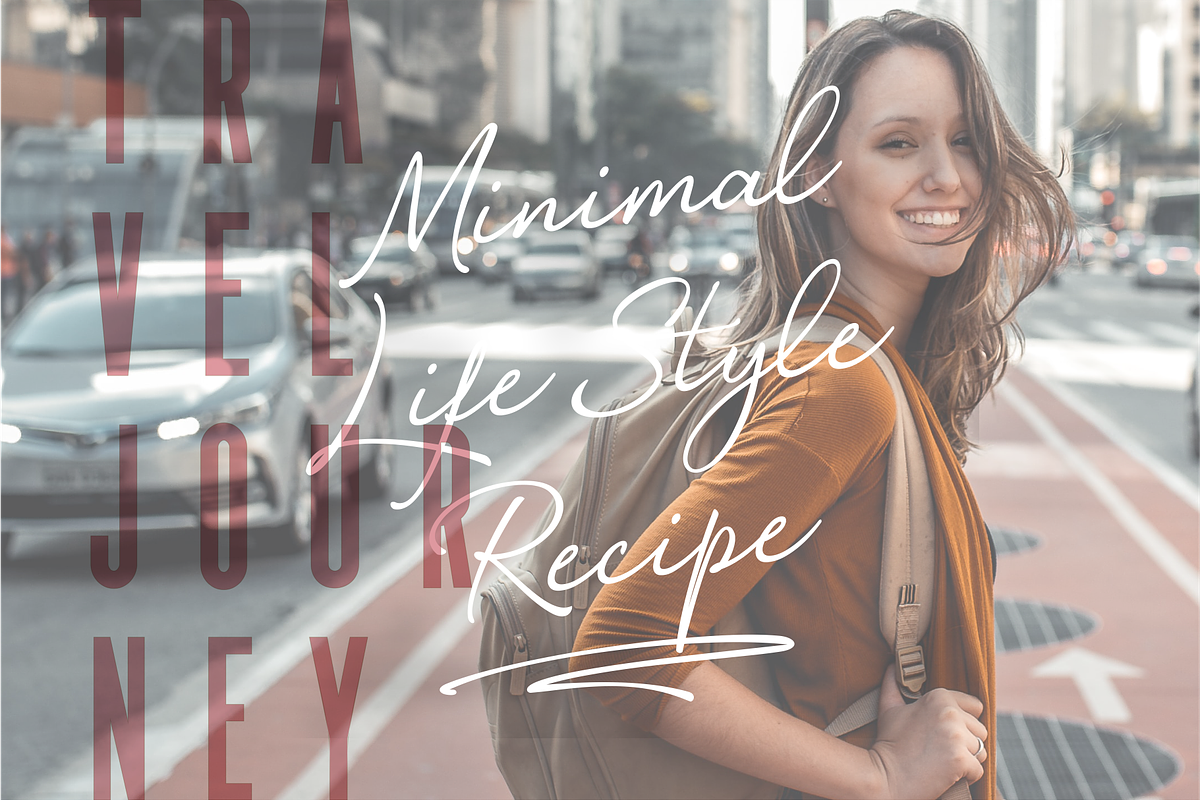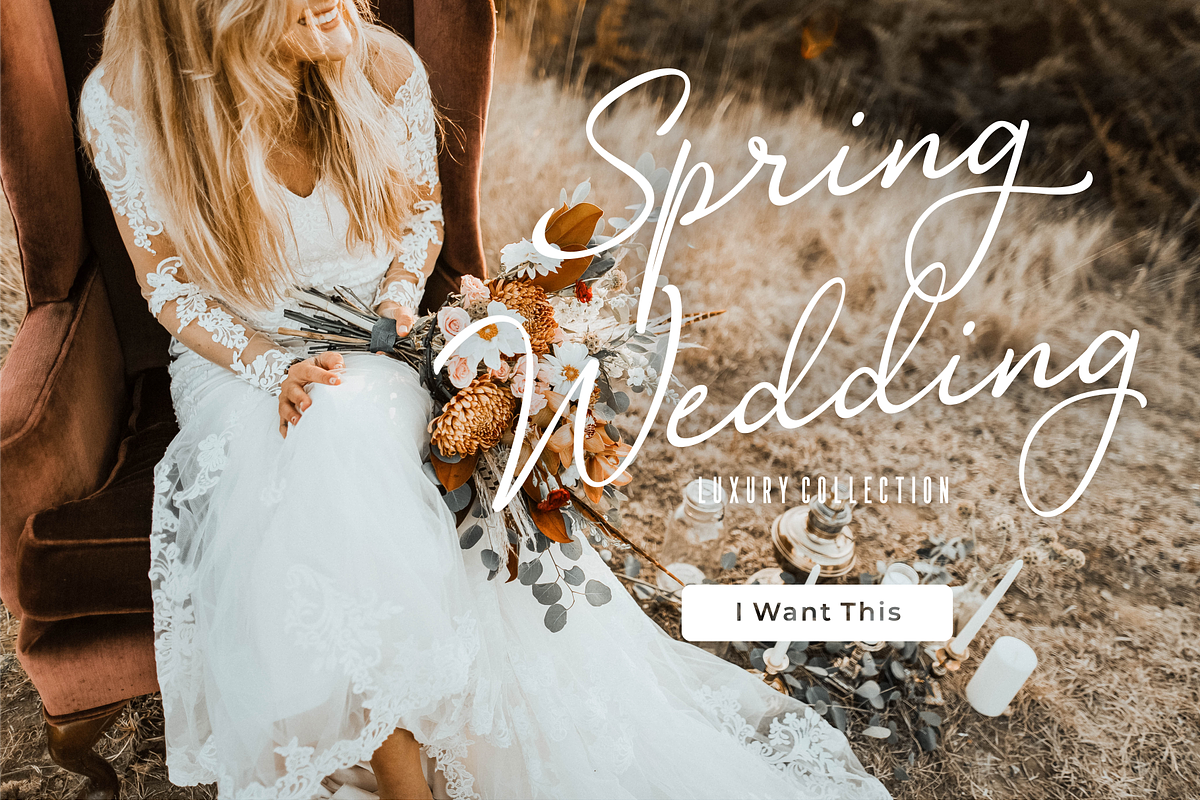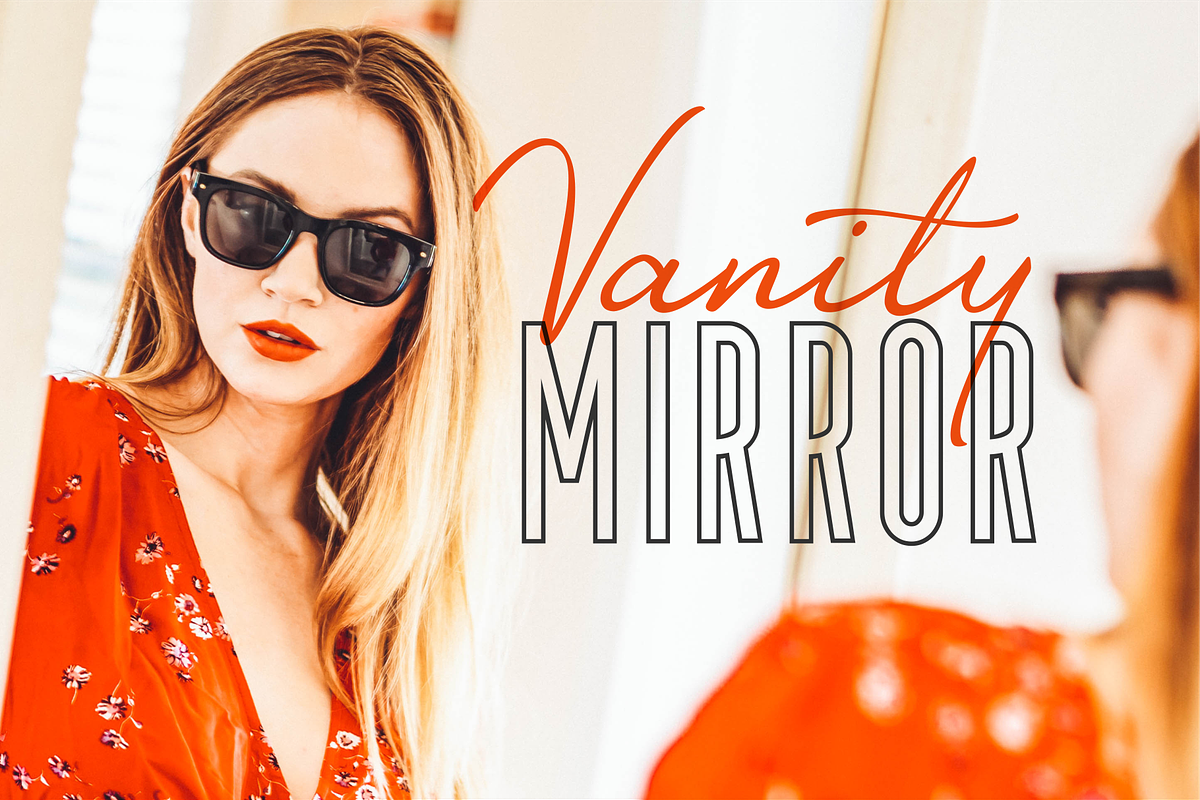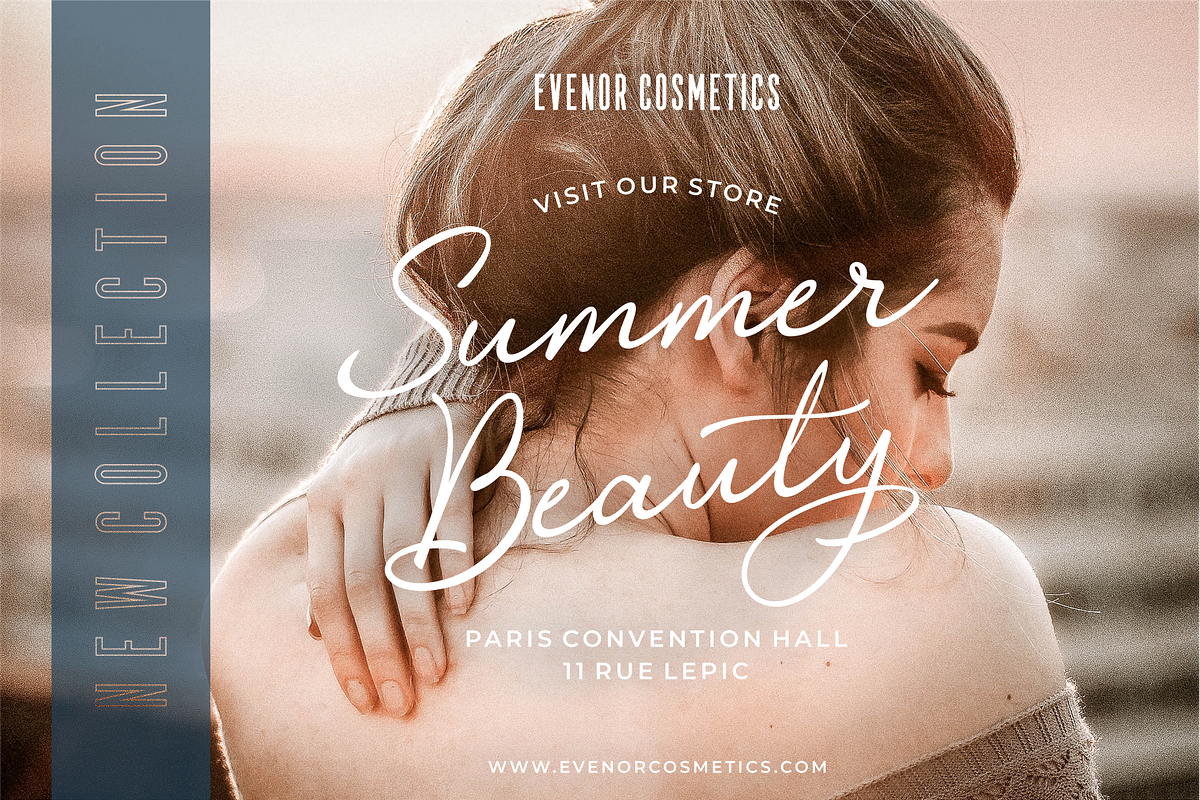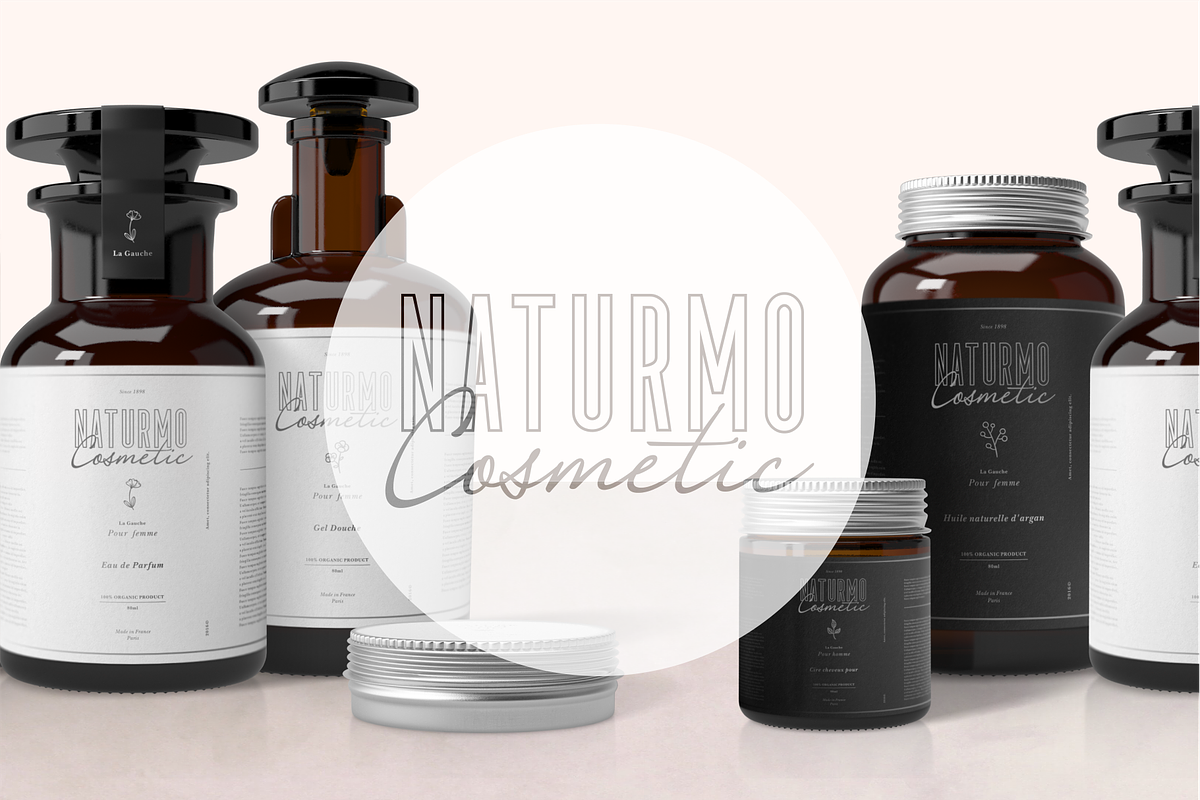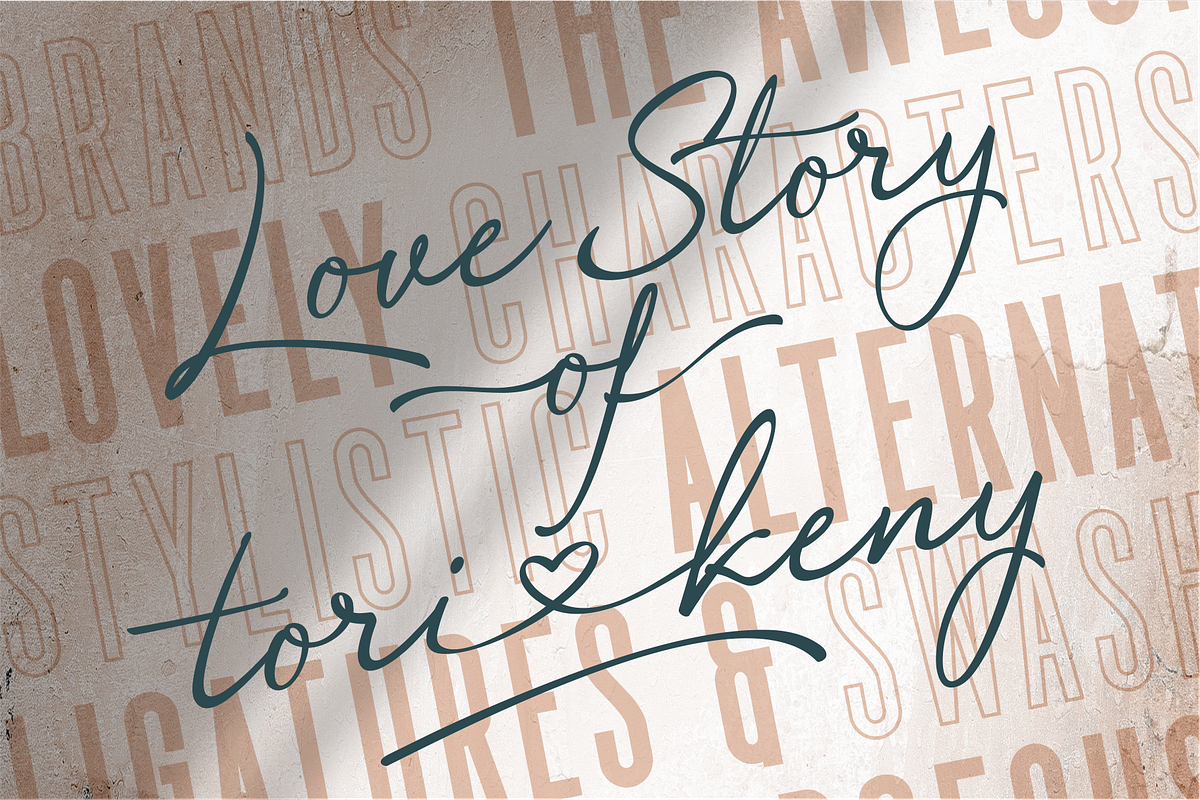
Loyalty Script Fonts
Fashionable Calligraphy and Typography mood in a compact, perfect for branding and your important projects. ✨warm glow ✨Casual ✨Luxury
Loyalty Script has five comrades to accompany your style throughout your luxury design projects. Versatile enough to make gorgeous typography and elegant touch.
Loyalty Script is inspired by cosmetics and beauty with great personalities. Once you using them, it could be as powerful and amazing as your personality. We got your back and you got our 100% support!
- Loyalty Script
- Loyalty Script Slant
- Loyalty Swash
- Loyalty Sans
- Loyalty Outline